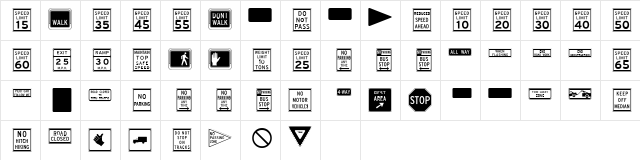
InterstatePi Two
Design Context for InterstatePi Typeface
InterstatePi is a composed and adaptable typeface that performs quietly and consistently across a wide range of design contexts.